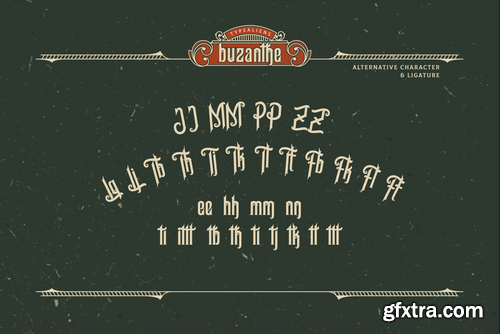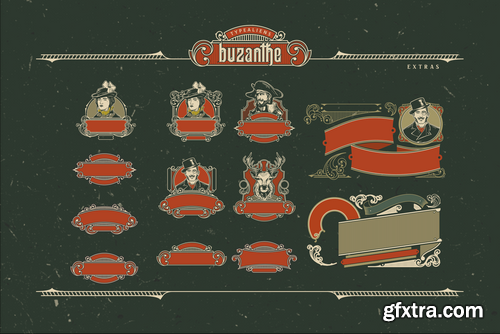
CM - Buzanthe Font 5158024
BUZANTHE is a vintage font based on serif fonts, with a few modifications and ornaments so that this font becomes a unique and beautiful display font. You can combine this font with classic badges, illustrations etc.